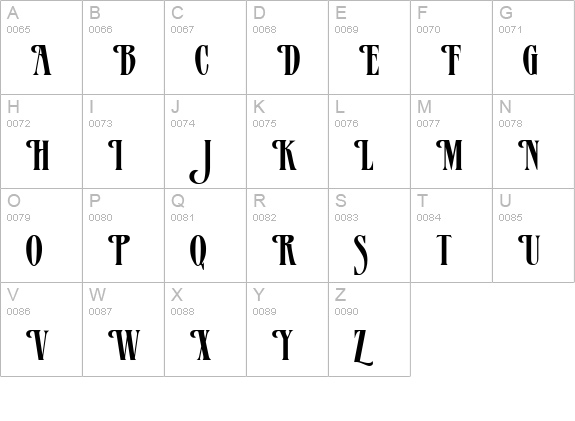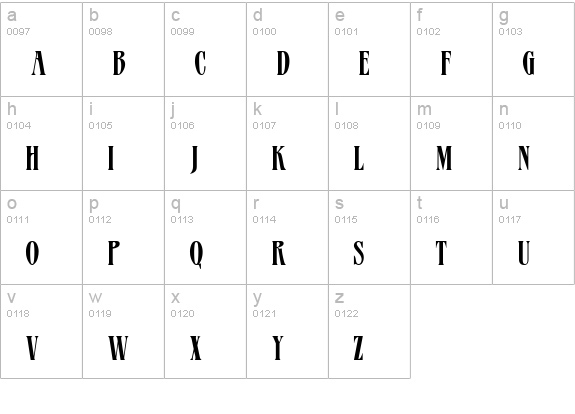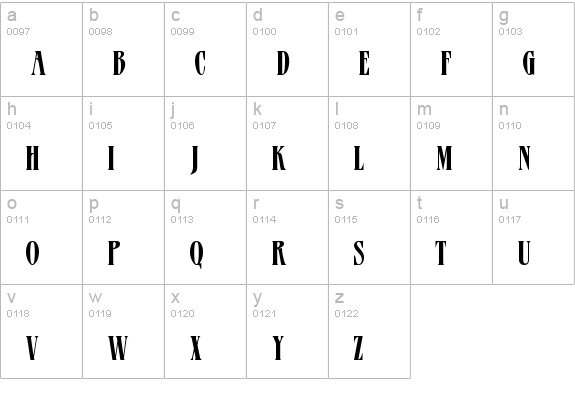
January Font Details
Introducing January font, a versatile and elegant typeface perfect for a wide range of design projects. This font features a clean and modern aesthetic, making it ideal for use in branding, logo design, editorial layouts, and more. With its sleek lines and stylish curves, January font adds a touch of sophistication to any project. What sets January font apart is not only its timeless design but also its accessibility. This high-quality typeface is available for free download at FontsMarket.com, allowing designers to easily incorporate it into their creative work without breaking the bank. Whether you're working on a personal project or a client commission, January font is sure to elevate your designs and make a lasting impression. Don't miss out on this opportunity to enhance your design toolkit with the free January font. Download it today and explore the endless possibilities it offers for your next project.